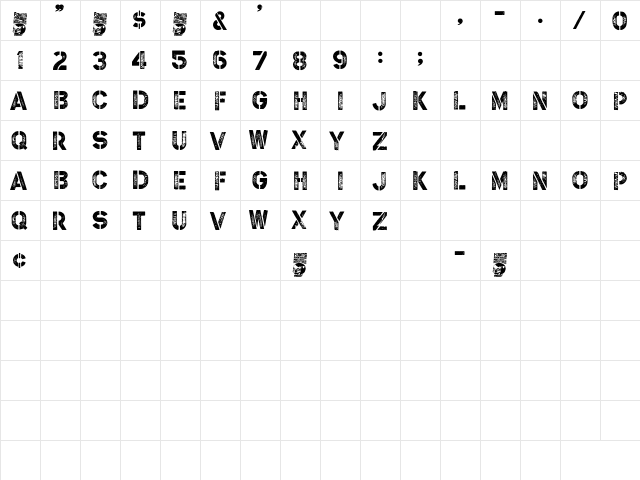
Steel Soldier Regular
| Designer | Woodcutter Manero |
Design Context for Steel Soldier Typeface
Steel Soldier draws on military and industrial lettering traditions, with forms that communicate strength and precision.
A strong choice for security brands, outdoor gear, and high-stakes visual communication.
Font Pairing: Use alongside a condensed or geometric sans for supporting copy — keep the pairing bold, functional, and free of ornament.
Pro Tip: Try Steel Soldier in all-caps for the most authentic military signage feel. It pairs well with stark, minimal layouts and muted colour palettes.